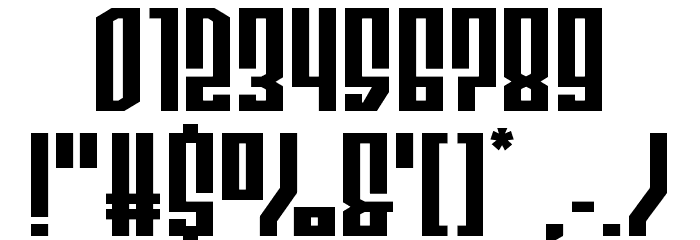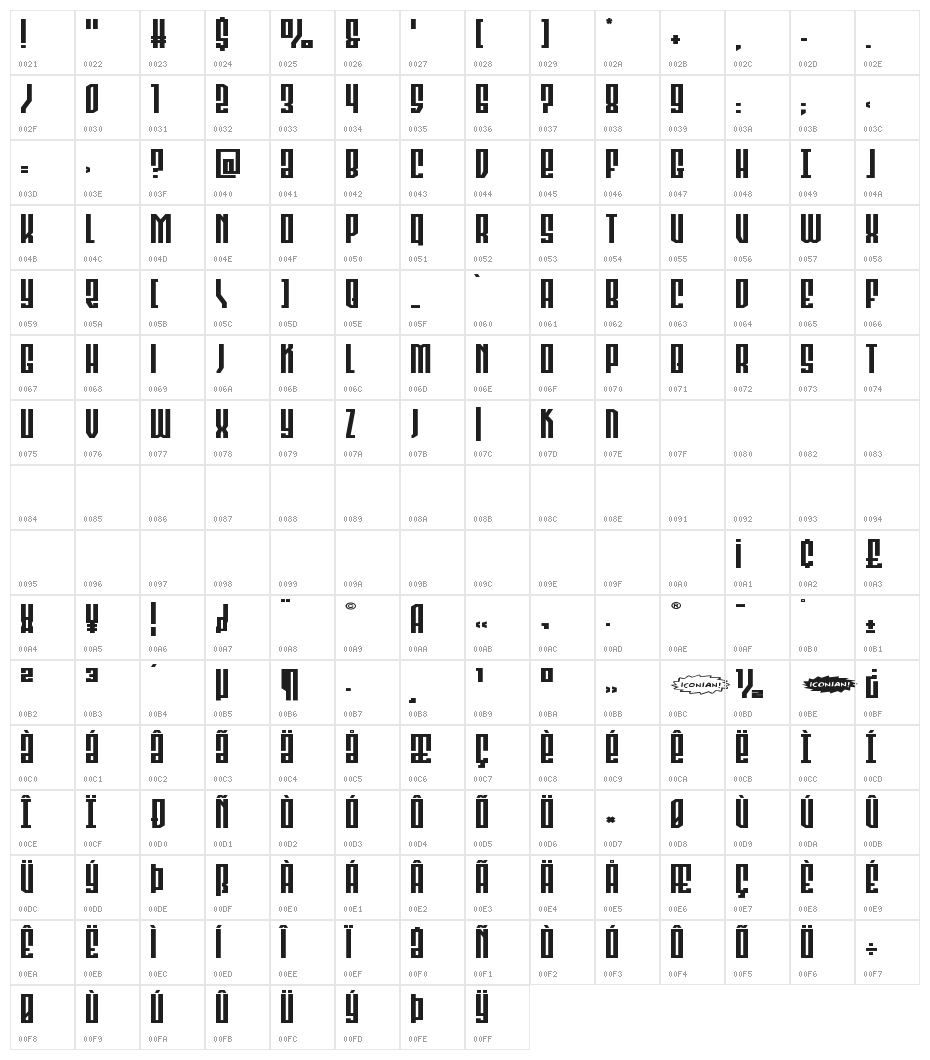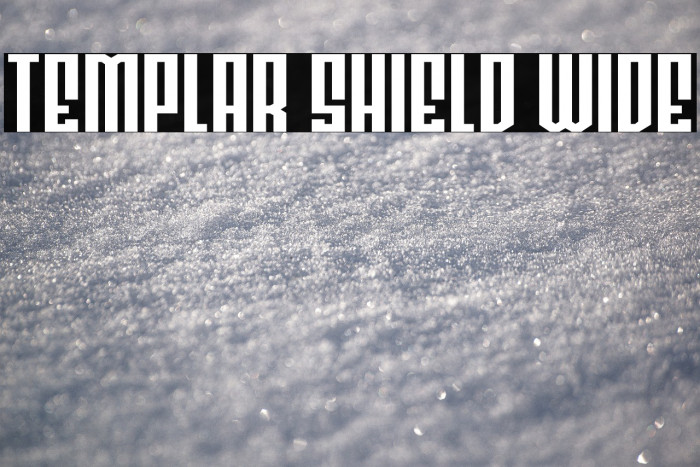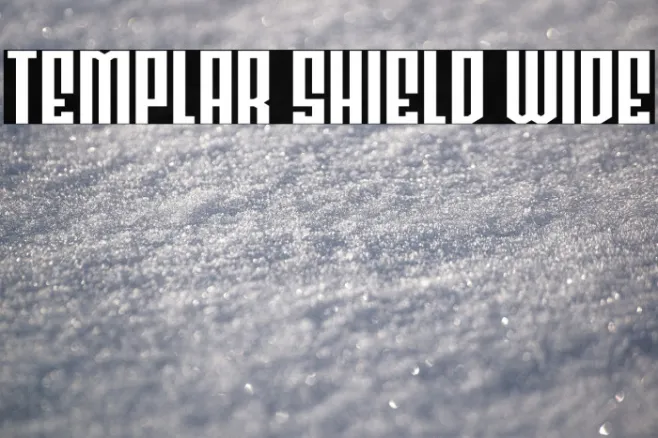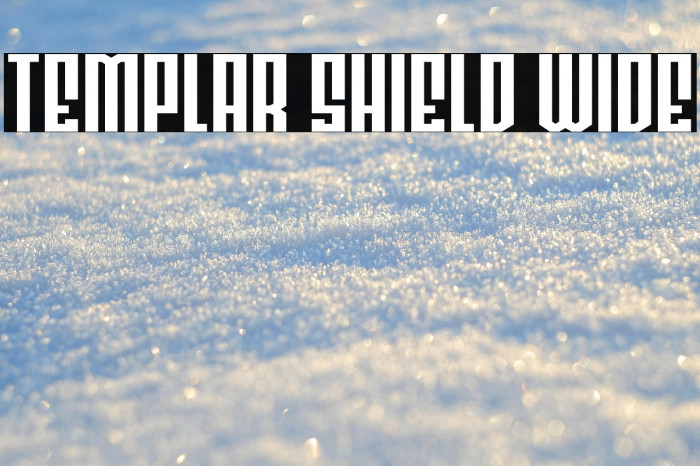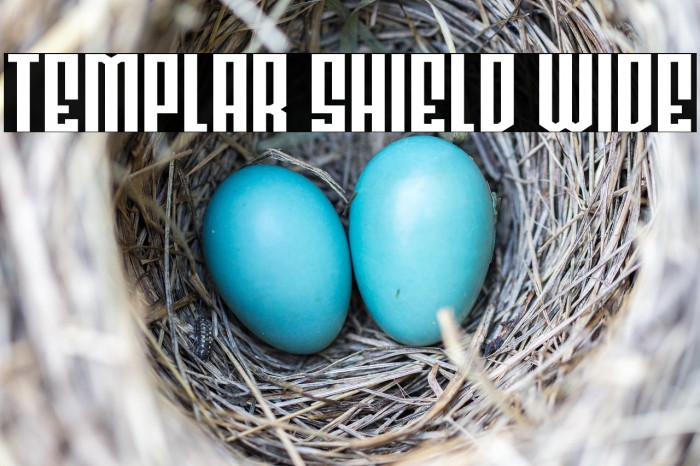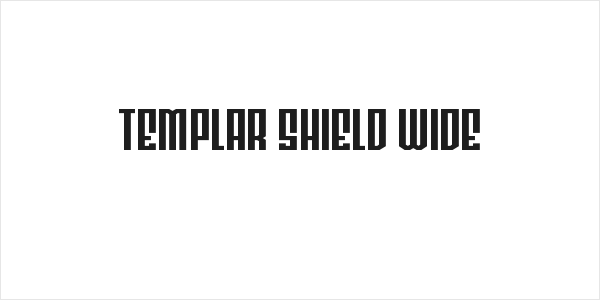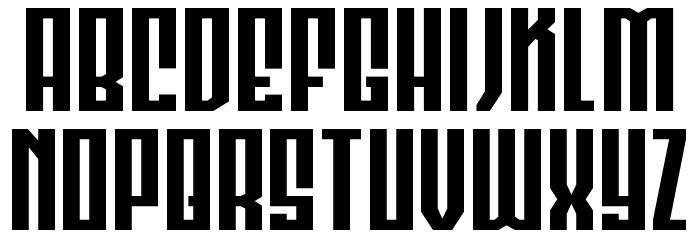
Templar Shield Wide Font
Templar Shield Wide Description
This font features a bold and striking design with a strong geometric structure. The characters are wide and have a blocky appearance, reminiscent of medieval or gothic styles. The uppercase and lowercase letters maintain a consistent width, giving the font a uniform look. The numbers and special characters follow the same bold and angular design, ensuring a cohesive appearance across all glyphs. The font's distinct style makes it ideal for projects that require a strong visual impact.